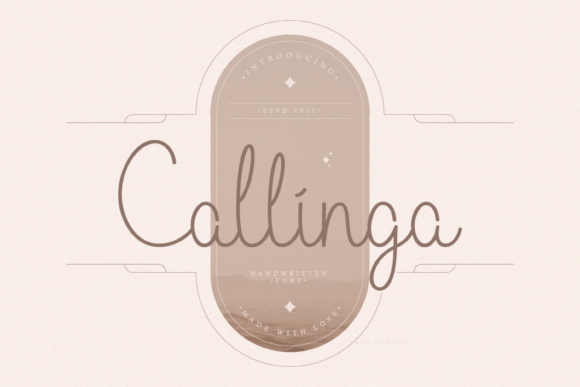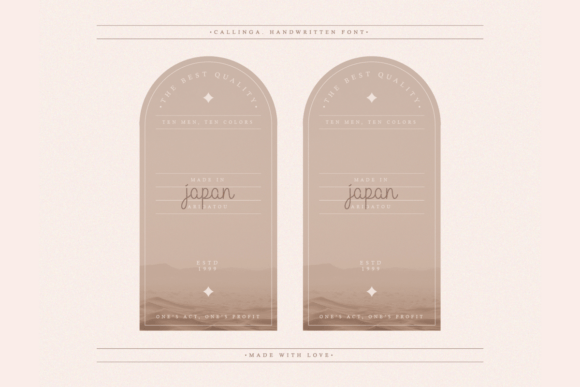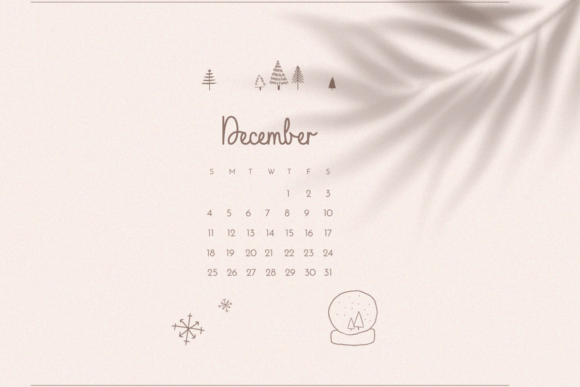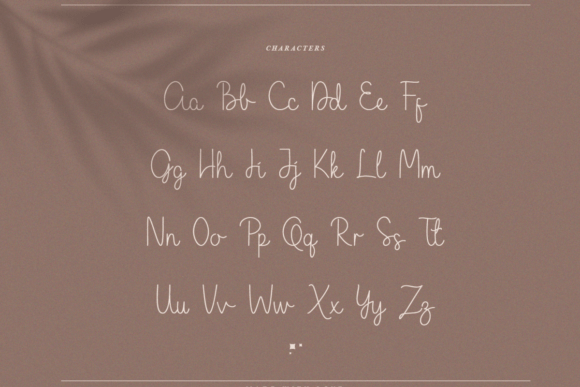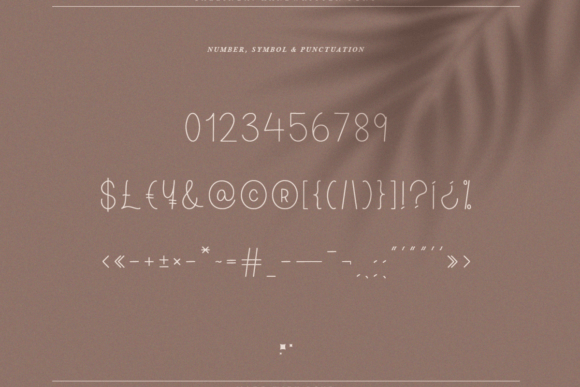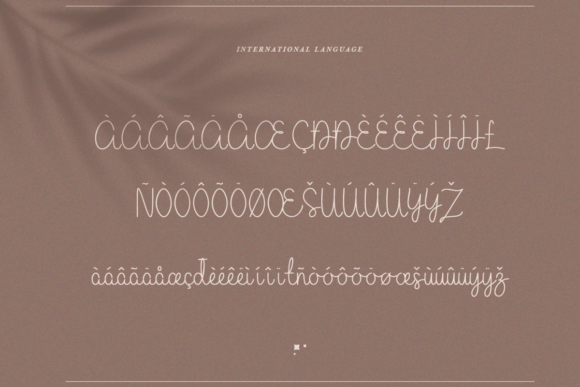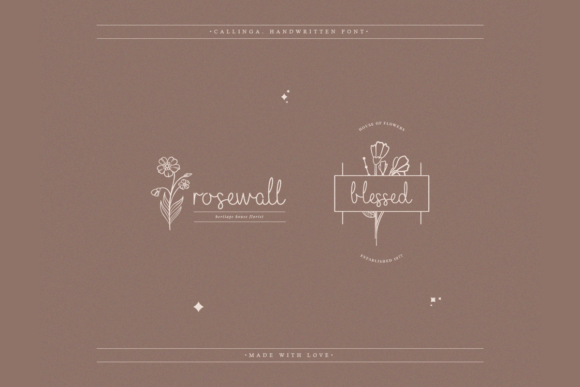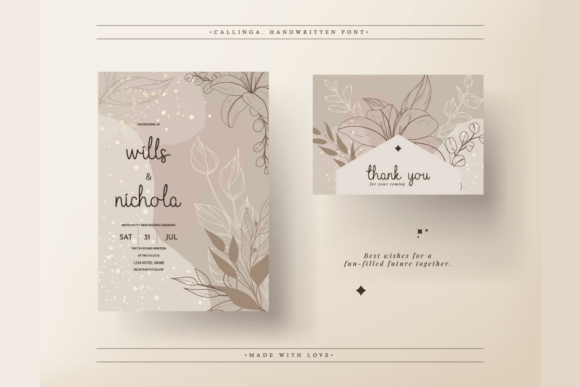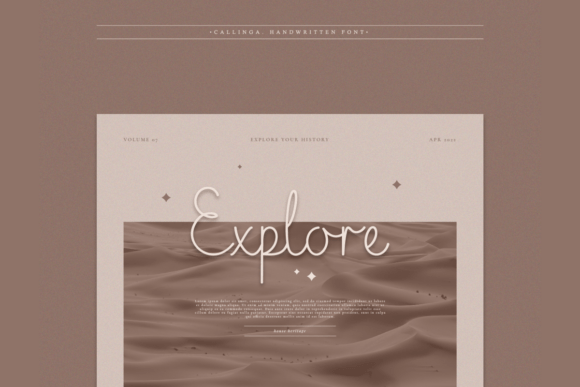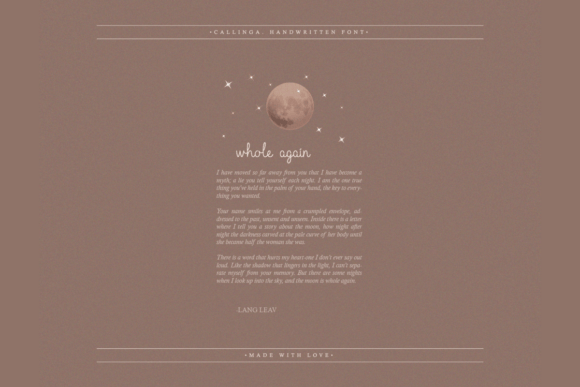
Callinga Font
About Callinga Font
Introducing Callinga, a gorgeous handwritten font crafted in 2022. Beyond being an aesthetic script font, Callinga is an extraordinary and stylish typeface designed to elevate your design projects. Its versatile nature makes it perfect for a wide range of applications, including invitations, wedding projects, logos, table menus, greeting cards, lettering, posters, and more, adding a stylish script taste to your creations.
Callinga stands out with its unique and stylish design, making it a versatile choice for various design contexts. Whether you’re creating elegant wedding invitations or designing a stylish logo, this font adds a touch of sophistication to your projects.
The aesthetic script nature of Callinga contributes to its overall beauty, creating a visually pleasing and cohesive look. The carefully crafted characters enhance the elegance of your text, making it a standout choice for projects that require a stylish and contemporary script font.
In summary, Callinga is not just a font; it’s a creative tool designed to bring extraordinary and stylish elements to your designs. Download Callinga now and explore how it can enhance your invitations, logos, and various other design projects. With its aesthetic script taste and stylish design, Callinga is ready to become a valuable asset in your design toolkit, offering versatility and sophistication in every stroke.